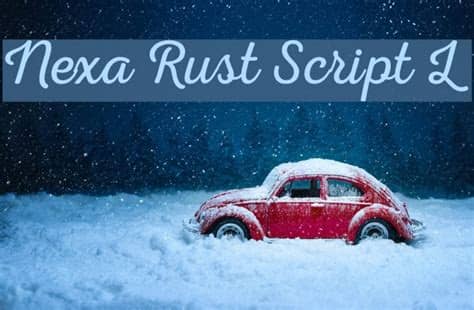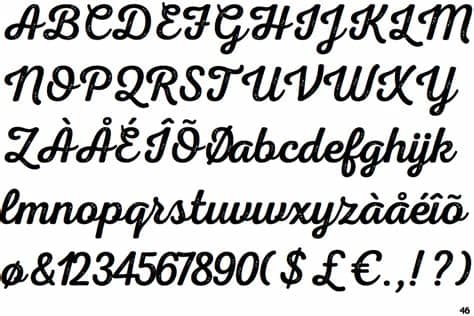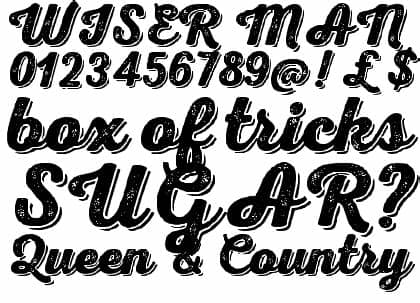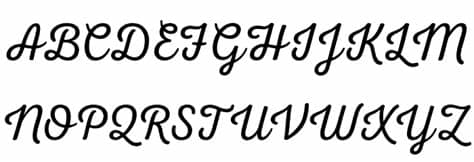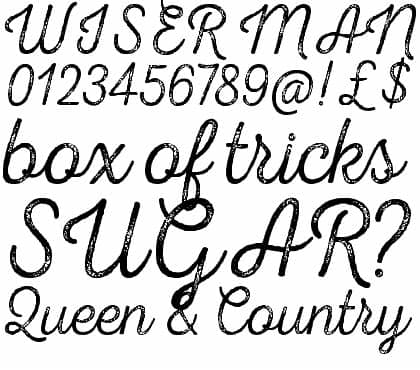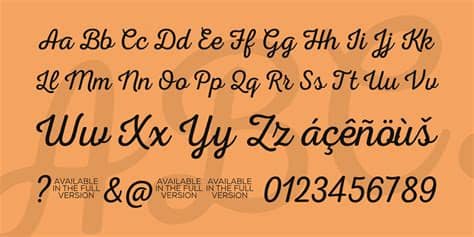
Nexa Rust Script B Font / Nexa Rust Script T 03 / We can add more characters, more languages like â polish, czech.. Download 5 free fonts here. The author works at company fontfabric nexa rust script l 0 is free for personal use only. Nexa rust script b 00 by fontfabric type foundry. We can add more characters, more languages like â polish, czech. Nexa rust script l 0 was designed by fontfabric.
Nexa rust script b shadow. Many scripts used to write multiple languages over wide geographical areas have developed localized variant forms of specific letters, which are used by individual literary communities. Nexa rust script l 0 is the perfect font for all your fun designs. Nexa rust script b 00 by fontfabric type foundry. Similar fonts for nexa rust script b 00 from creativemarket.com.
Many scripts used to write multiple languages over wide geographical areas have developed localized variant forms of specific letters, which are used by individual literary communities. Nexa rust script b w00 01 font info. Nexa rust script b shadow postscript name: Nexa rust std script b 1 font information. Supports extended latin & cyrillic. Nexa rust is a rough version of the already popular nexa and nexa slab families with added new matching nexa script and nexa handmade fonts.along with all of this, you will also discover added groups of extras which could serve as a nexa rust free font. Nexa rust script b 00 by fontfabric type foundry. Browse our library of over 25,000 typeface styles to find the perfect font for your logo, website, app, video, or other design projects!
Nexa rust script b 1. Nexa rust script l 0 is the perfect font for all your fun designs. Nexa rust std script b 1 font information. The nexa rust script l 0 font contains 54 beautifully designed characters. Nexa rust is a rough version of the already popular nexa and nexa slab families with added new matching nexa script and nexa handmade fonts.along with all of this, you will also discover added groups of extras which could serve as a nexa rust free font. ✔️ customize your own preview on ffonts.net to make sure it`s the right one for your designs. Browse our library of over 25,000 typeface styles to find the perfect font for your logo, website, app, video, or other design projects! ( fonts by a www.fontfabric.com. Download 5 free fonts here. We can add more characters, more languages like â polish, czech. Fontfabric nexa rust script b w00 01 copyright 2014 by fontfabric. Many scripts used to write multiple languages over wide geographical areas have developed localized variant forms of specific letters, which are used by individual literary communities. Nexa rust script b shadow postscript name:
Nexa rust script l 0. Nexa rust is a typeface designed by svetoslav simov, ani petrova, vasil stanev and radomir tinkov, and is available for desktop, web, app, epub, and server. The nexa rust script l 0 font contains 54 beautifully designed characters. Supports extended latin & cyrillic. ✔️ customize your own preview on ffonts.net to make sure it`s the right one for your designs. Please, talk with the author for commercial use or for any support. Many scripts used to write multiple languages over wide geographical areas have developed localized variant forms of specific letters, which are used by individual literary communities. Nexa rust script b 3 font:
100% nexa rust—a display font system —slab, sans, script + extras —a total of 83 fonts. Supports extended latin & cyrillic. Nexa rust script l font subfamily identification: Nexa rust script l 0 font. Nexa rust script b shadow. Nexa rust std script b 1 font information. Similar fonts for nexa rust script b 00 from creativemarket.com. Nexa rust script l 0. Please, talk with the author for commercial use or for any support. Nexa rust script l 0 is the perfect font for all your fun designs. Nexa rust script b 00 by fontfabric type foundry. Nexa rust is a typeface designed by svetoslav simov, ani petrova, vasil stanev and radomir tinkov, and is available for desktop, web, app, epub, and server. Sign up buy nexa rust script l 01 desktop font from fontfabric type foundry on.
Fontfabric nexa rust script b w00 01 copyright 2014 by fontfabric. Please, talk with the author for commercial use or for any support. We can add more characters, more languages like â polish, czech. Nexa rust is a rough version of the already popular nexa and nexa slab families with added new matching nexa script and nexa handmade fonts.along with all of this, you will also discover added groups of extras which could serve as a nexa rust free font. You can use the nexa rust.
Nexa rust script b 00 by fontfabric type foundry. Nexa rust is a rough version of the already popular nexa and nexa slab families with added new matching nexa script and nexa handmade fonts.along with all of this, you will also discover added groups of extras which could serve as a nexa rust free font. Fontfabric nexa rust script b w00 01 copyright 2014 by fontfabric. Many scripts used to write multiple languages over wide geographical areas have developed localized variant forms of specific letters, which are used by individual literary communities. The author works at company fontfabric nexa rust script l 0 is free for personal use only. With your donation weâll be able to spend more time to improve and update our free fonts. Nexa rust std script b 1 font information. ✔️ customize your own preview on ffonts.net to make sure it`s the right one for your designs.
Nexa rust is a typeface designed by svetoslav simov, ani petrova, vasil stanev and radomir tinkov, and is available for desktop, web, app, epub, and server.
Nexa rust script l 0 version: Nexa rust script l 0 font. Nexa rust script b w05 1. Nexa rust script l 0 font | www.ffonts.net. Browse our library of over 25,000 typeface styles to find the perfect font for your logo, website, app, video, or other design projects! Sign up buy nexa rust script l 01 desktop font from fontfabric type foundry on. Nexa rust script l 0. Version 1.000;ps 001.000;hotconv 1.70;makeotf.lib2.5.58329 development postscript font name. Nexa rust script b 1. Nexa rust is a typeface designed by svetoslav simov, ani petrova, vasil stanev and radomir tinkov, and is available for desktop, web, app, epub, and server. Nexa rust script b 3 font: Nexa rust std script b 1 font information. You can use the nexa rust.